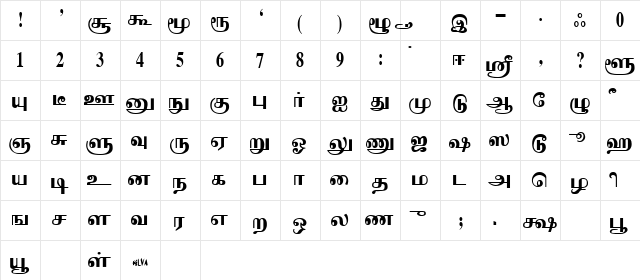
Kamalam Regular Font Preview
Kamalam Regular
Design Context for Kamalam Typeface
Kamalam offers clean, dependable letterforms without strong stylistic allegiance, making it a practical choice for designers who need flexibility.